Serif fonts are those that have little tails at the end of each letter. They’re often used in print media because they look good when printed.
There are so many different serif fonts out there, and each one has its own unique personality. You’ll find that some fonts are more suited to certain styles than others. Here’s a list of some of the best serif fonts available online.
1. Palash – Serif Font
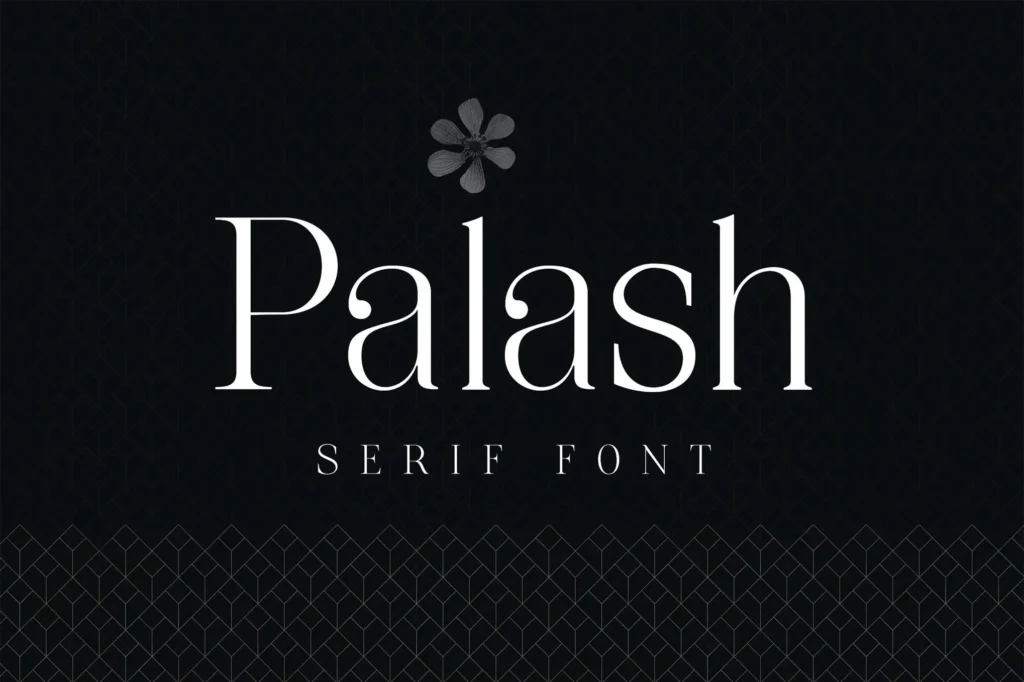
Palash is a typeface which is good for appealing and stylish headlines and logos. It is suited for larger sizes. It has Uppercase and Lowercase. It also looks great with wide letter spacing.
2. Mariona Serif Font
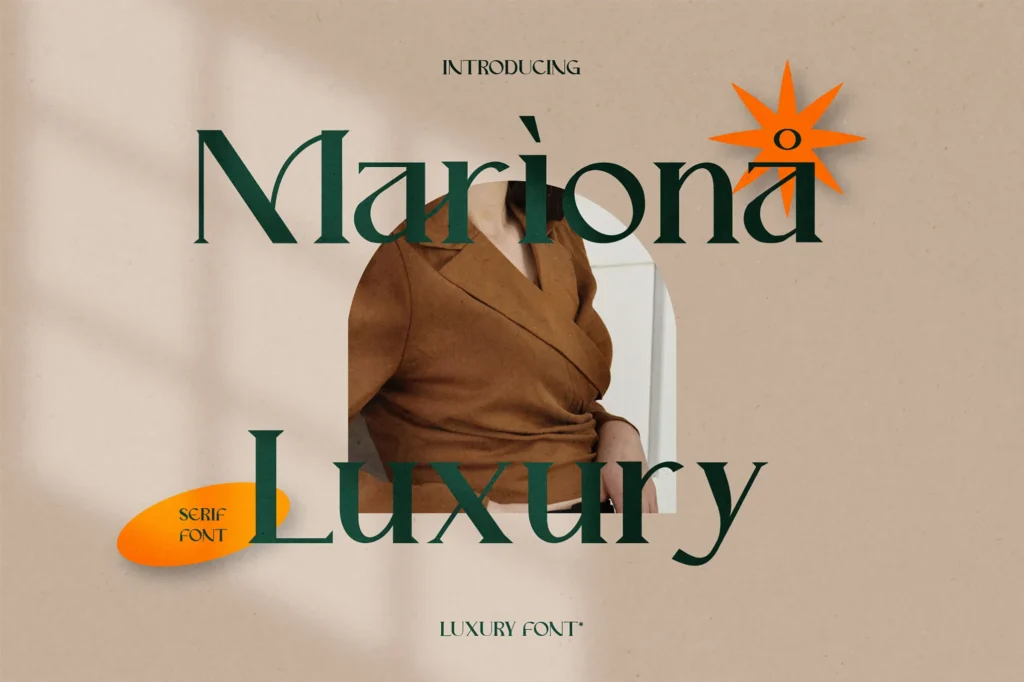
For modern and chic branding, Mariona Serif Font is a visually striking, all-caps typeface which is ideal for posters, magazines, clothes, movie titles, and packaging. It has a strong as well as elegant touch which makes it perfect for any project. Marketers, graphic designers, and other creative professionals can use it for logo design, editorial layouts, social media visuals, and even product packaging. It’s available in both OTF and TTF formats, which means you can use it on different design software.
3. Minthe – Serif Fonts
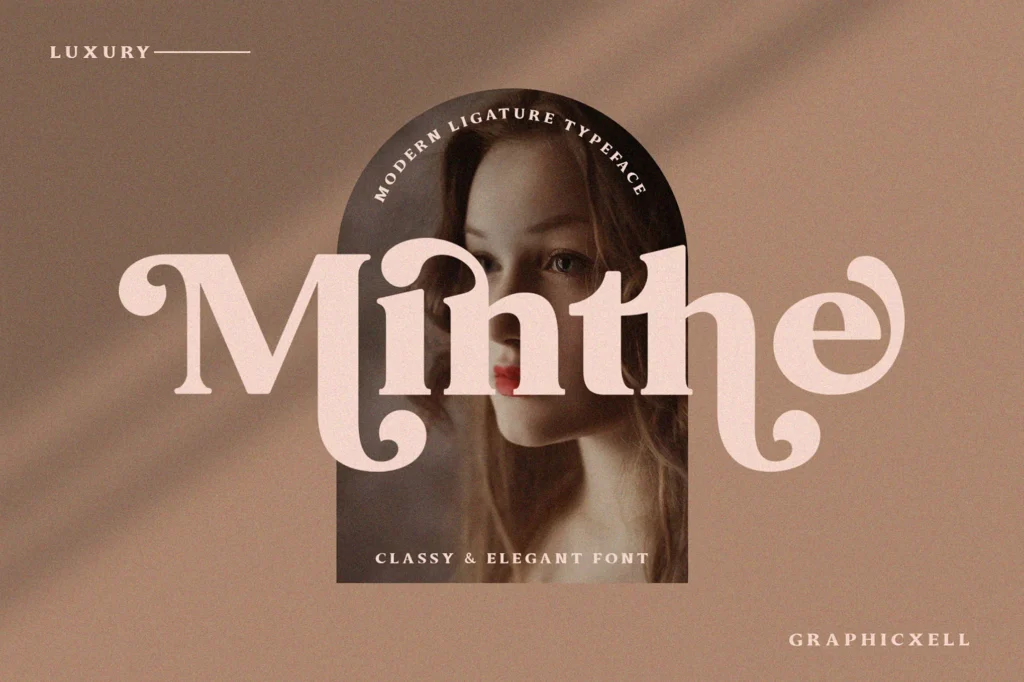
Minthe is a beautiful screen serif inspired by the well-known minimalist identity, ideal for developing templates, brochures, movies, advertising branding, logos, and more.
4. Fraternite Serif Fonts
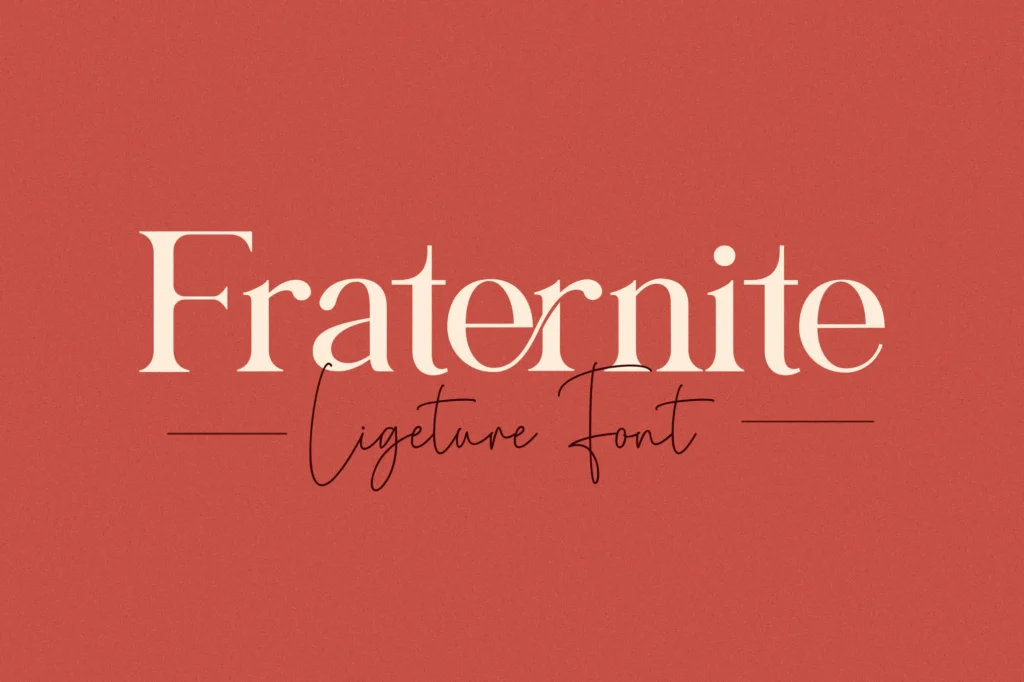
Announcing Fraternite Serif Font, a new product with special curves and cut-ins that makes it one of the most recognizable caps fonts on the marketplace.
This font has both masculine and feminine aspects, making it ideal for fashion branding or editorial design.
You may also use this font for logo and label design, apparel design, music, advertising, t-shirts, and brochures.
5. London Serif Fonts
London Serif is a beautiful and multifaceted font that can be used for branding, editorial, packaging design, and many others areas of work. Graphic designers, marketers, and other professionals looking for an elegant serif font are well served by the timeless look of London Serif.
6. Cremiline Serif Fonts
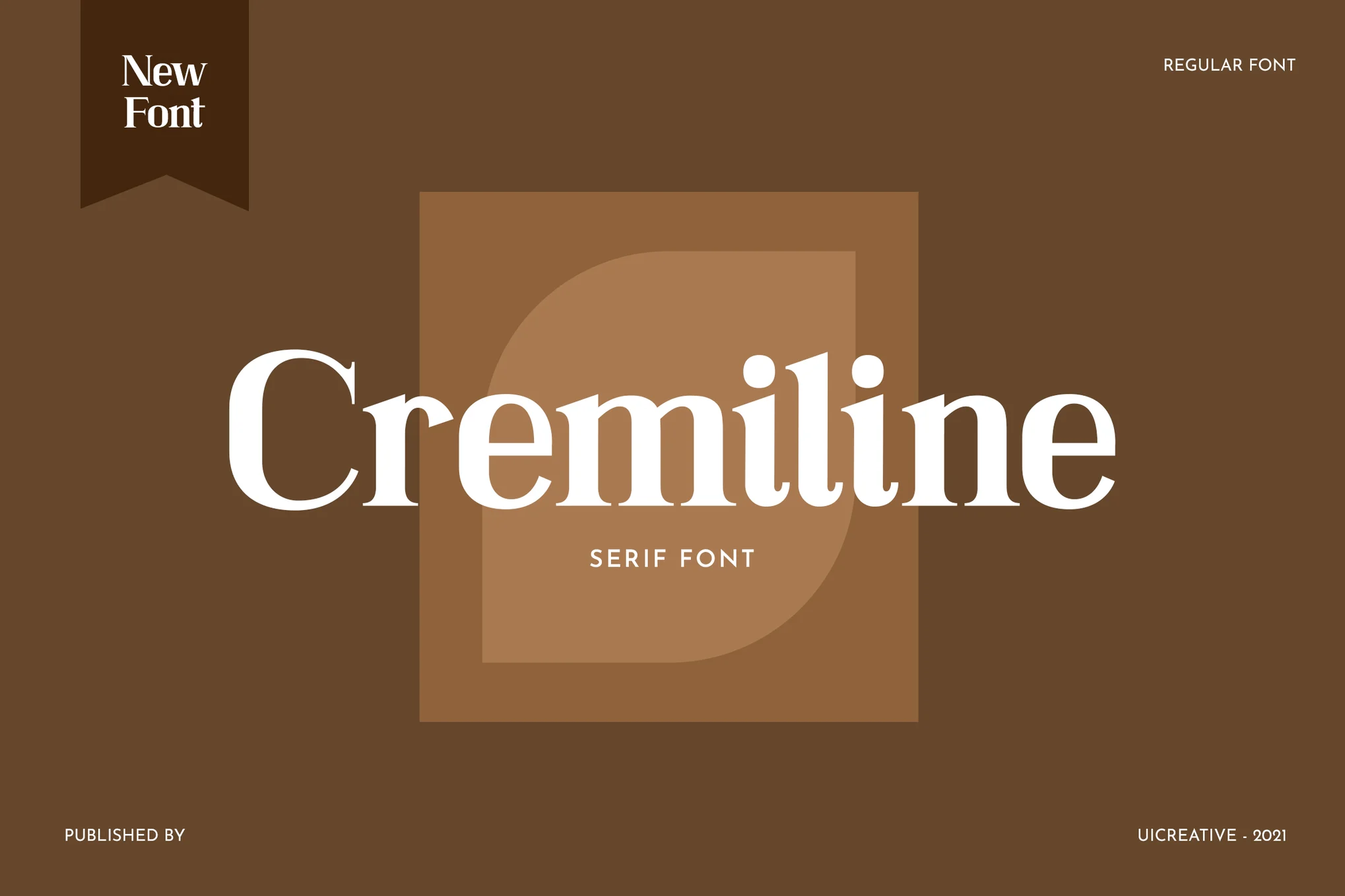
7. Magnita- serif fonts
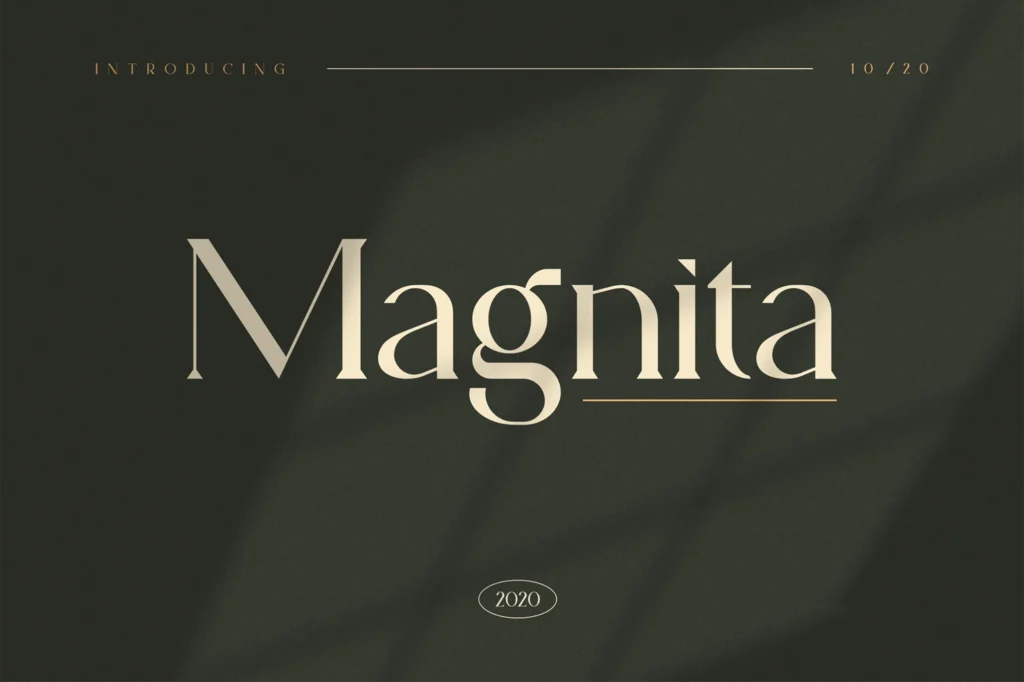
Riverdale Serif Font is ideal for posters, magazines, books, film titles, packaging, and almost everything else. It is a bold typeface which comes in all caps and it is great for branding and editorial layouts. What makes Riverdale stand out even more is its logo design which makes the font great for creative work.
8. Quiana – Serif Fonts
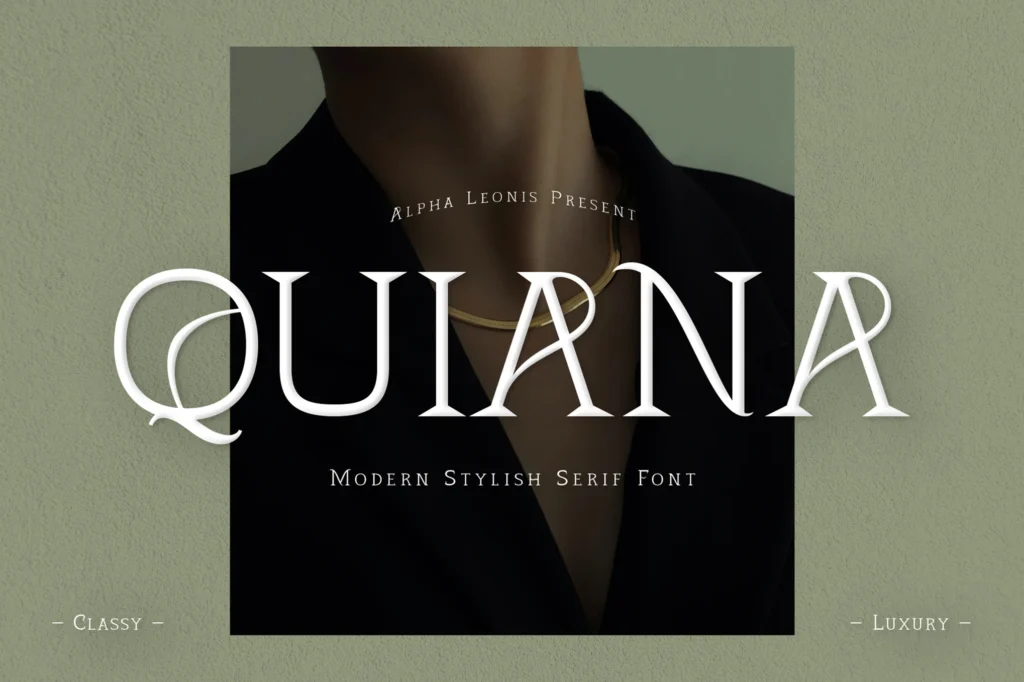
The Quiana Serif font is a contemporary cursive script for people who want elegance, simplicity, and an essence of modernity in their designs. This font perfectly fits with any project be it branding design, festa’s invitation cards, greeting cards, quotes on posters, etc.
9. Mafisha Serif Font
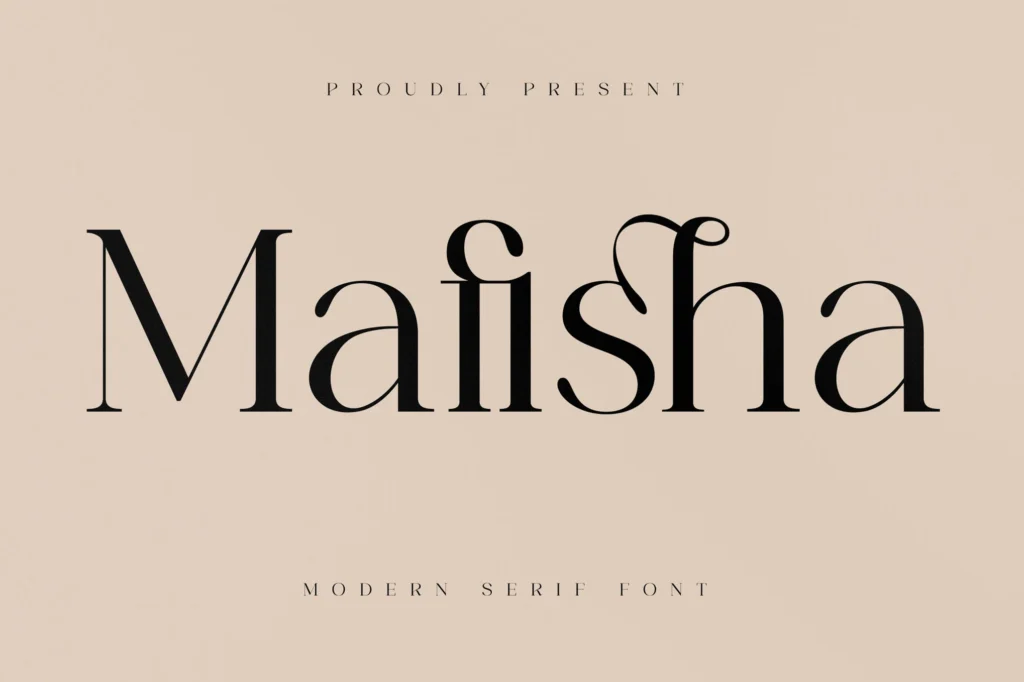
Our stylish new font will surely spice up your designs, whether they are in digital or printed formats. This font will work great on posters, social media materials, branding materials, and any other personal project you need to work on.
10. Workbar Serif Font
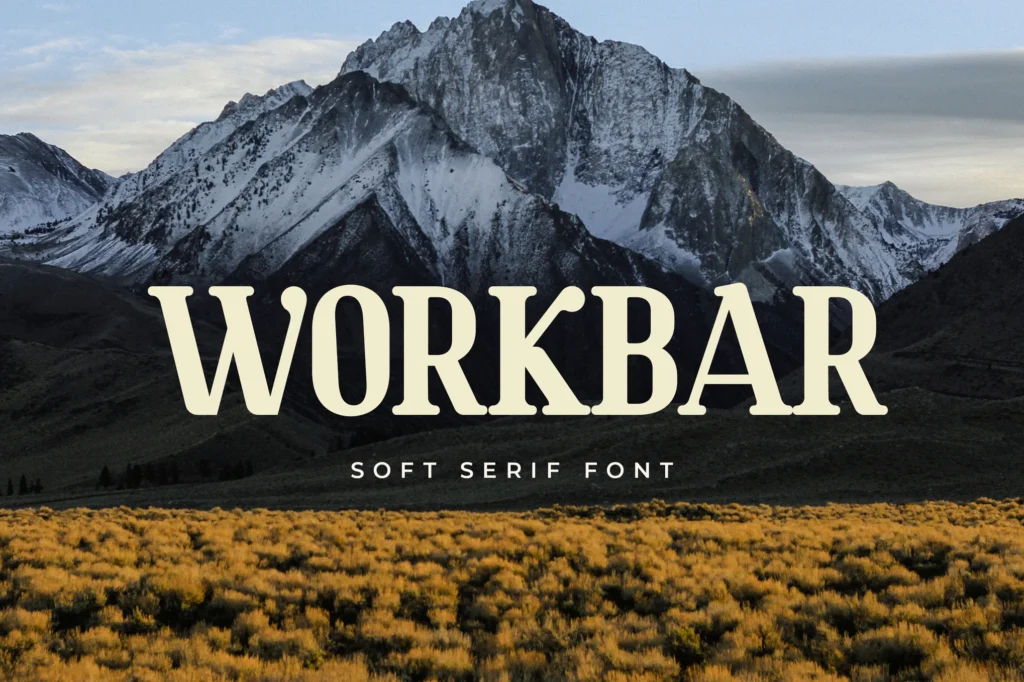
Introducing Workbar Serif Font, a stunning typeface that stands out because of its unique curves and cut-ins, giving it a distinct all-caps look. This font combines both masculine and feminine features seamlessly, making it suited for fashion branding, editorial design, and much more.
11. Yolinda Serif Font
Yolinda Serif Font is a modern yet simplistic elegant font motivated by notable logos of minimalistic design. Inspired by modern designs, this font applies elegance on any project which makes this font perfect for branding, logos, templates, brochures, advertisements, and much more. Its clean lines and curves make it suitable for those who seek moderation with a hint of sophistication.
12. Belinda Serif Font
Belinda Serif Font is great for modern creative projects, both digital and print, thanks to its versatility and sophistication. It has refined curves and an elegant structure making it ideal for branding, posters, social media posts, personal projects, and much more.
13. Weigeland Serif Font
bold addition. It’s vintage modern design makes it well suited to be used on labels, clothing, logos, posters, album covers, and even movie screens!
There’s no limit to your creative pieces because Weigeland’s design needs are eye catching and unique. Weigeland seamlessly combines style with a business like charm so you can use it to create statement pieces and branding concept designs.